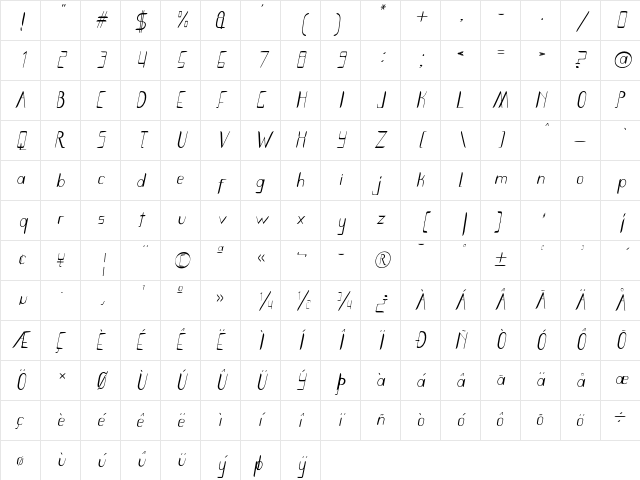
Complete Smoth Bight Italic Italic glyph index. Displaying only characters natively supported by Smoth Bight Italic Italic font.
Smoth Bight Italic is a composed and adaptable typeface that performs quietly and consistently across a wide range of design contexts. The slanted form adds forward momentum and visual energy.
Pro Tip: Use Smoth Bight Italic for emphasis, pull quotes, and subheadings where its slanted energy can add rhythm to the layout.